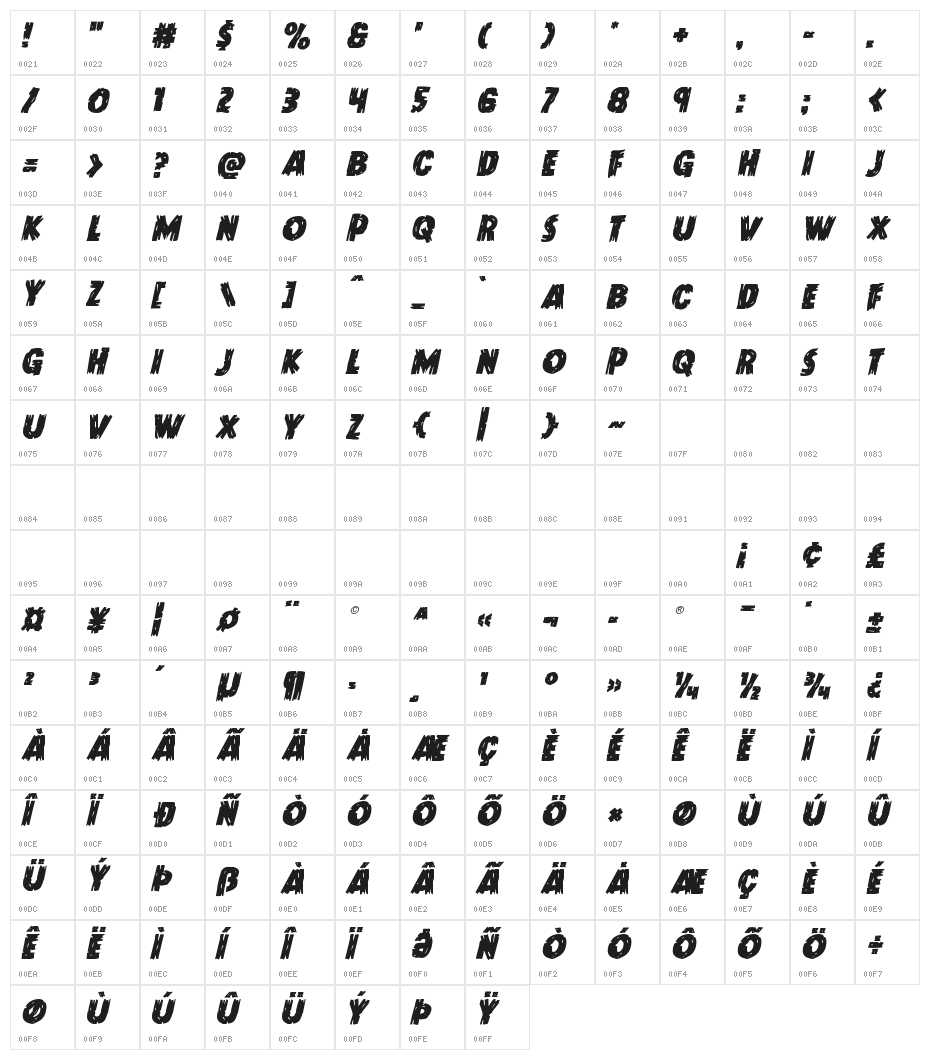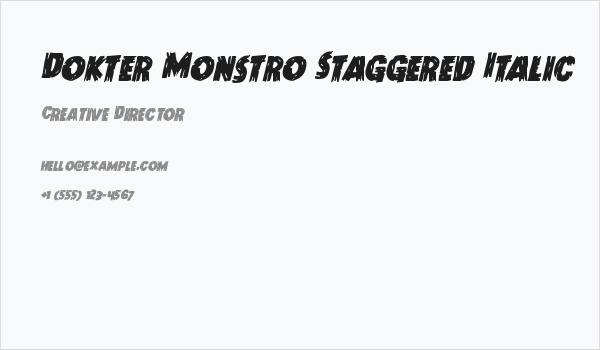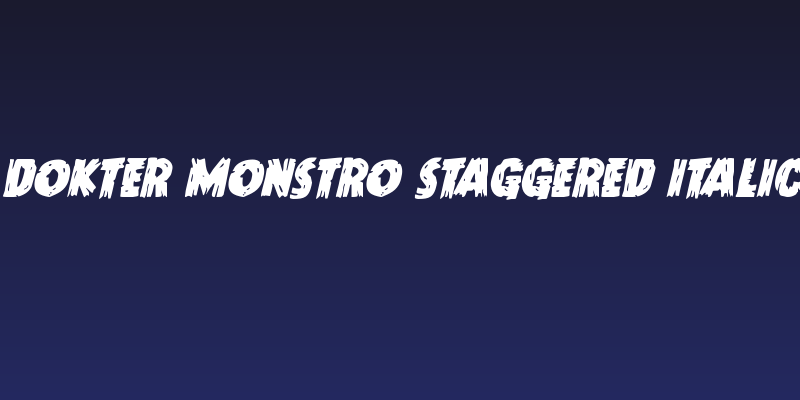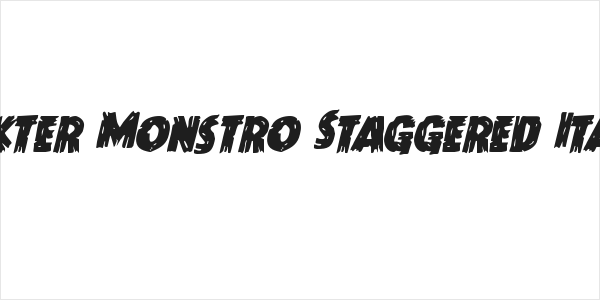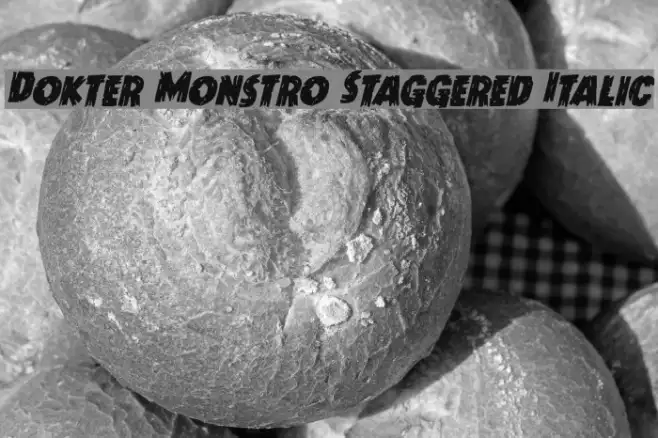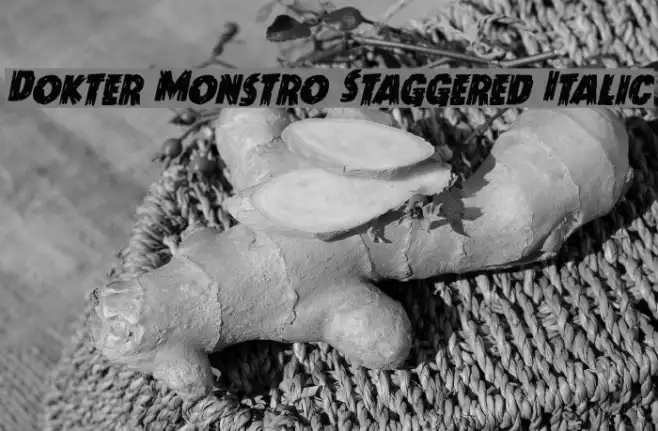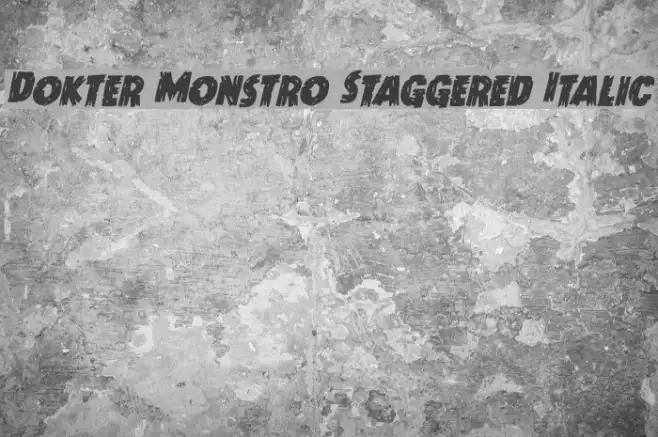
Dokter Monstro Staggered Italic Font
Dokter Monstro Staggered Italic Description
This font features a bold and dynamic style with a staggered, italicized appearance. The characters are heavily stylized with jagged edges and a sense of movement, creating a visually striking effect. The uppercase and lowercase letters maintain a consistent design, while the numbers and special characters follow the same energetic theme. This font is designed to grab attention and convey a sense of urgency or excitement, making it ideal for impactful designs.
| Proposed Projects | Ideal for posters, video game titles, horror-themed designs, or any project needing a bold and energetic typeface. |